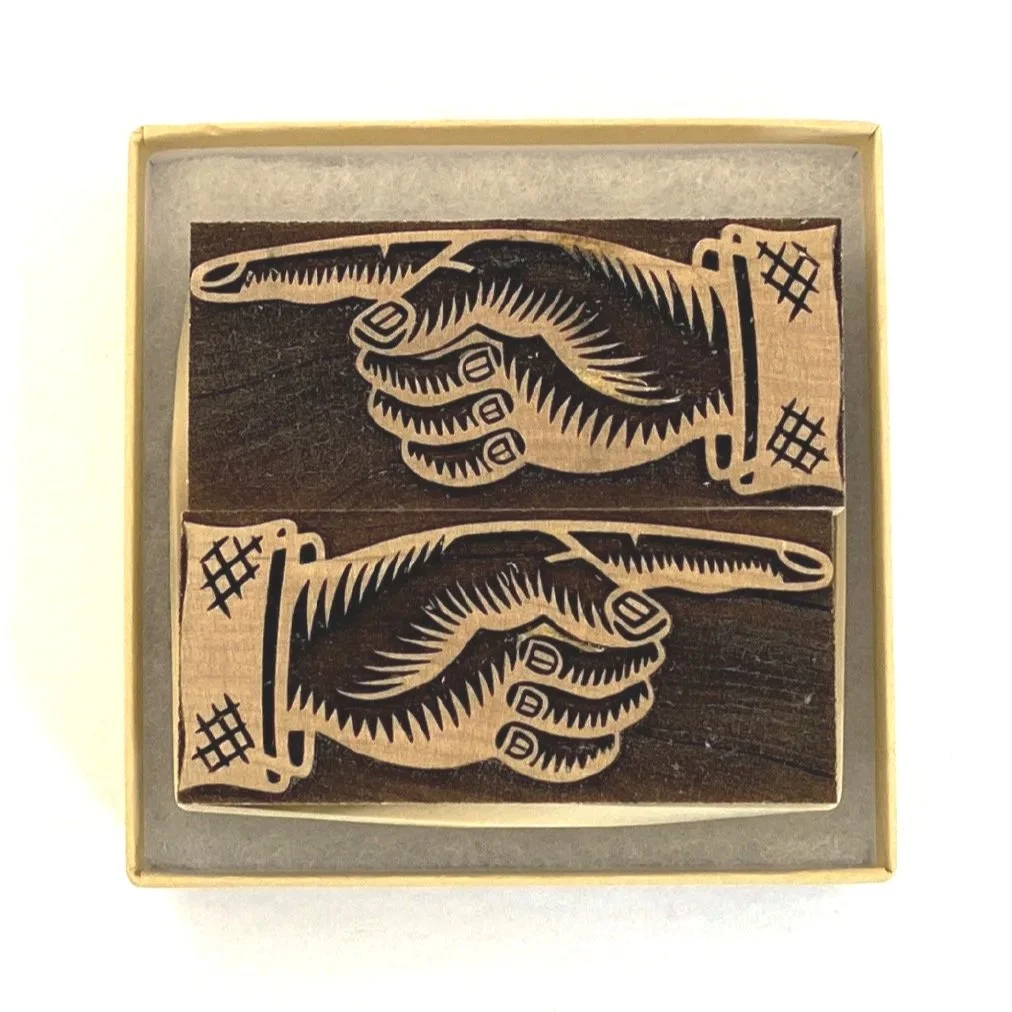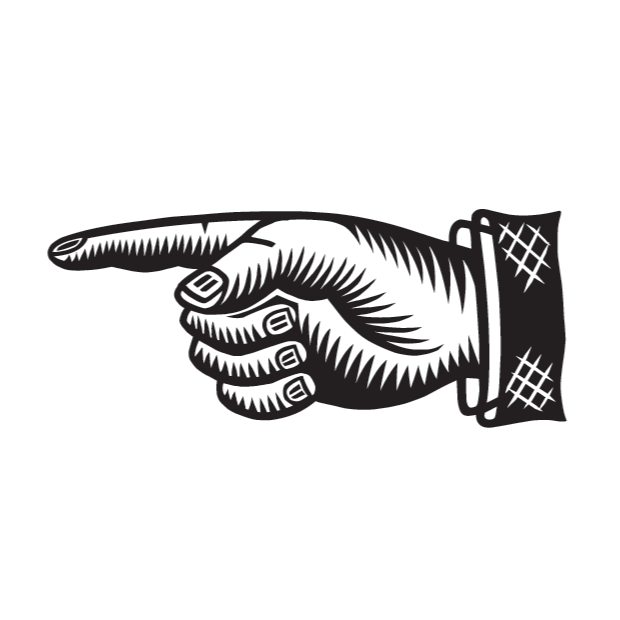
Designed by Scott Moore & Greg Walters
Laser cut
End grain maple
American Type high (.918")
One pair of manicules
My friend Greg Walters traced this design from a Stephenson Blake specimen. I wasn’t sure the coarse engraving lines would appeal, but I was wrong, it’s now my best-selling manicule by far. Thank you, Greg.